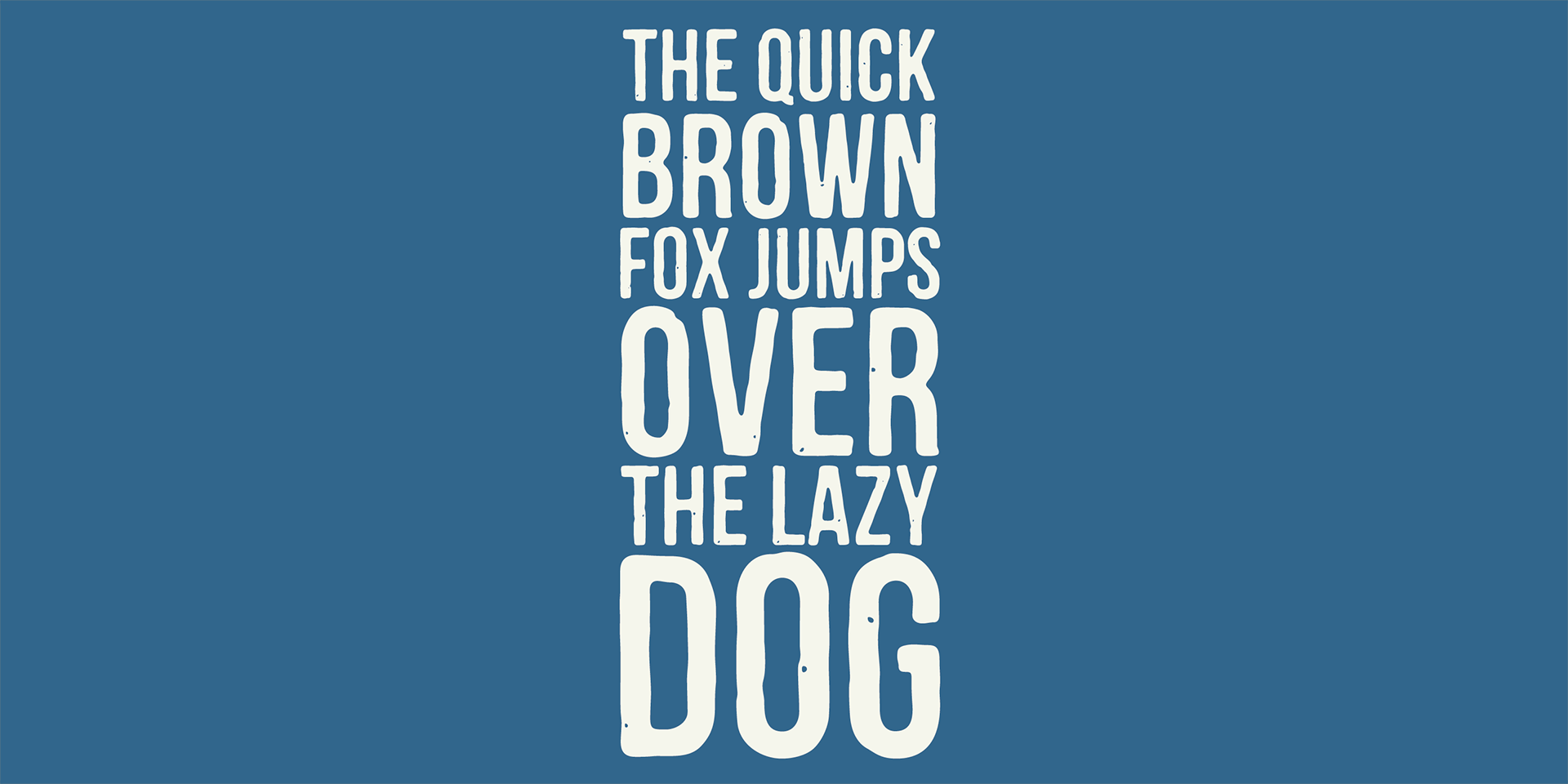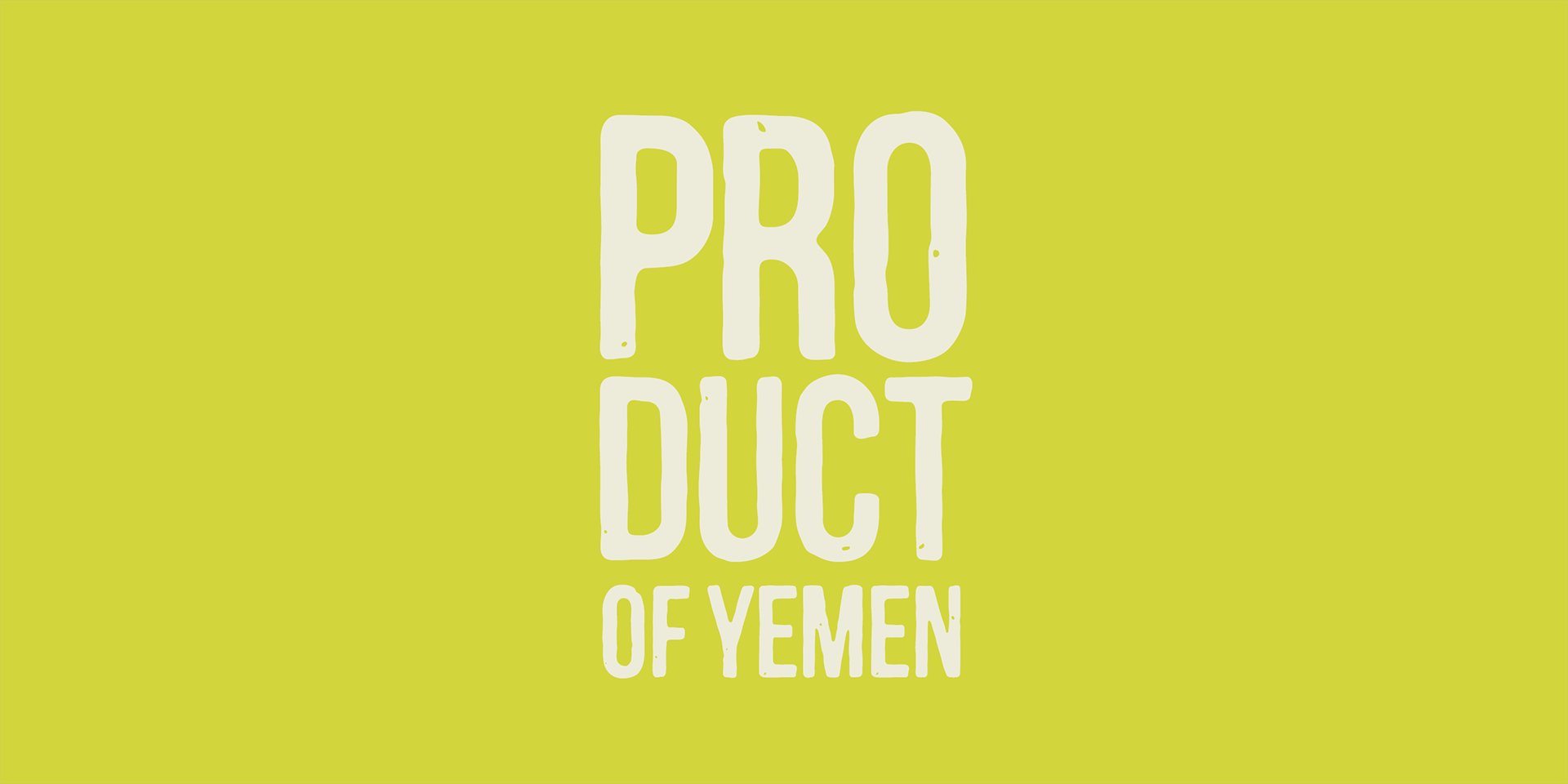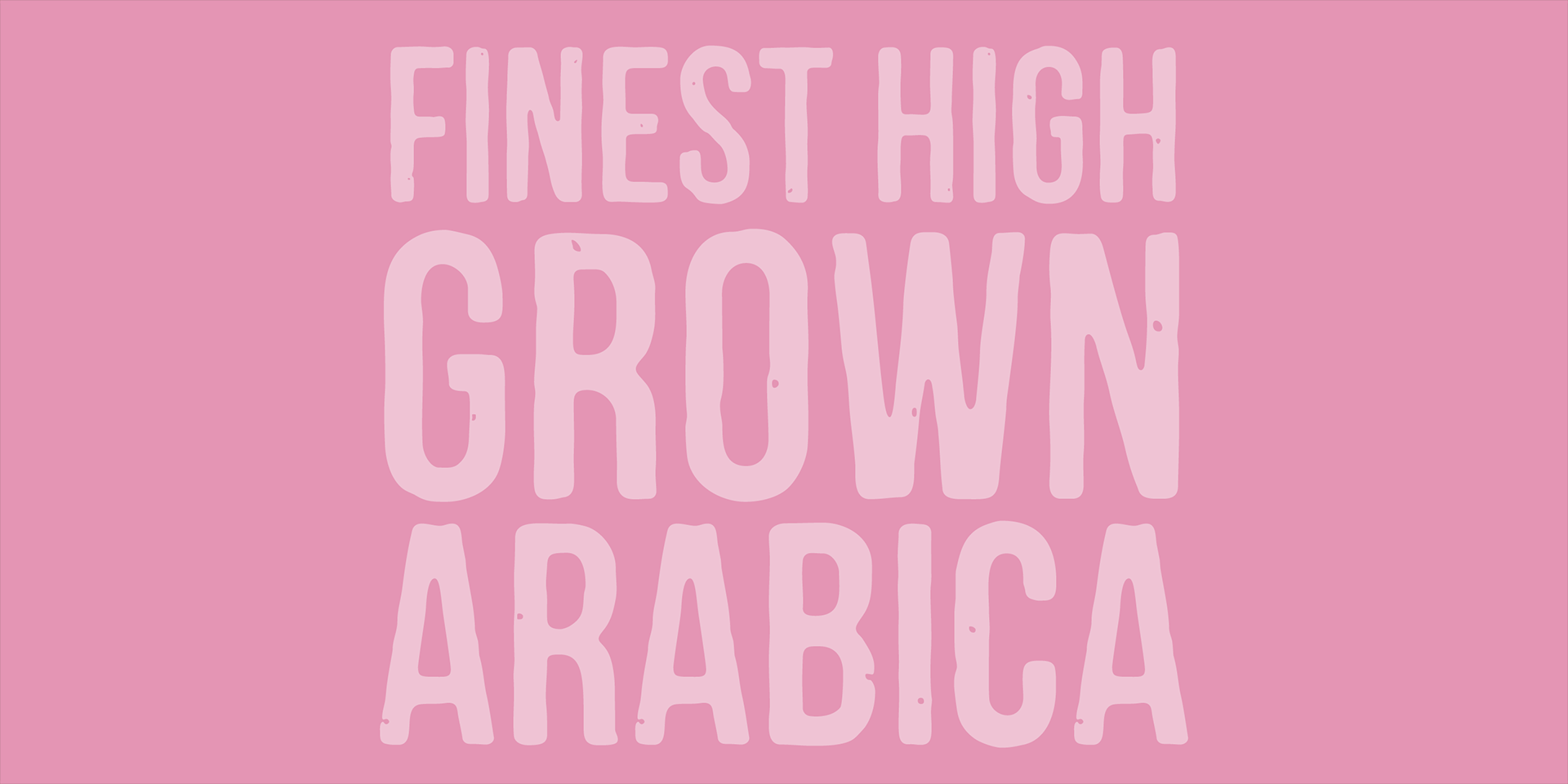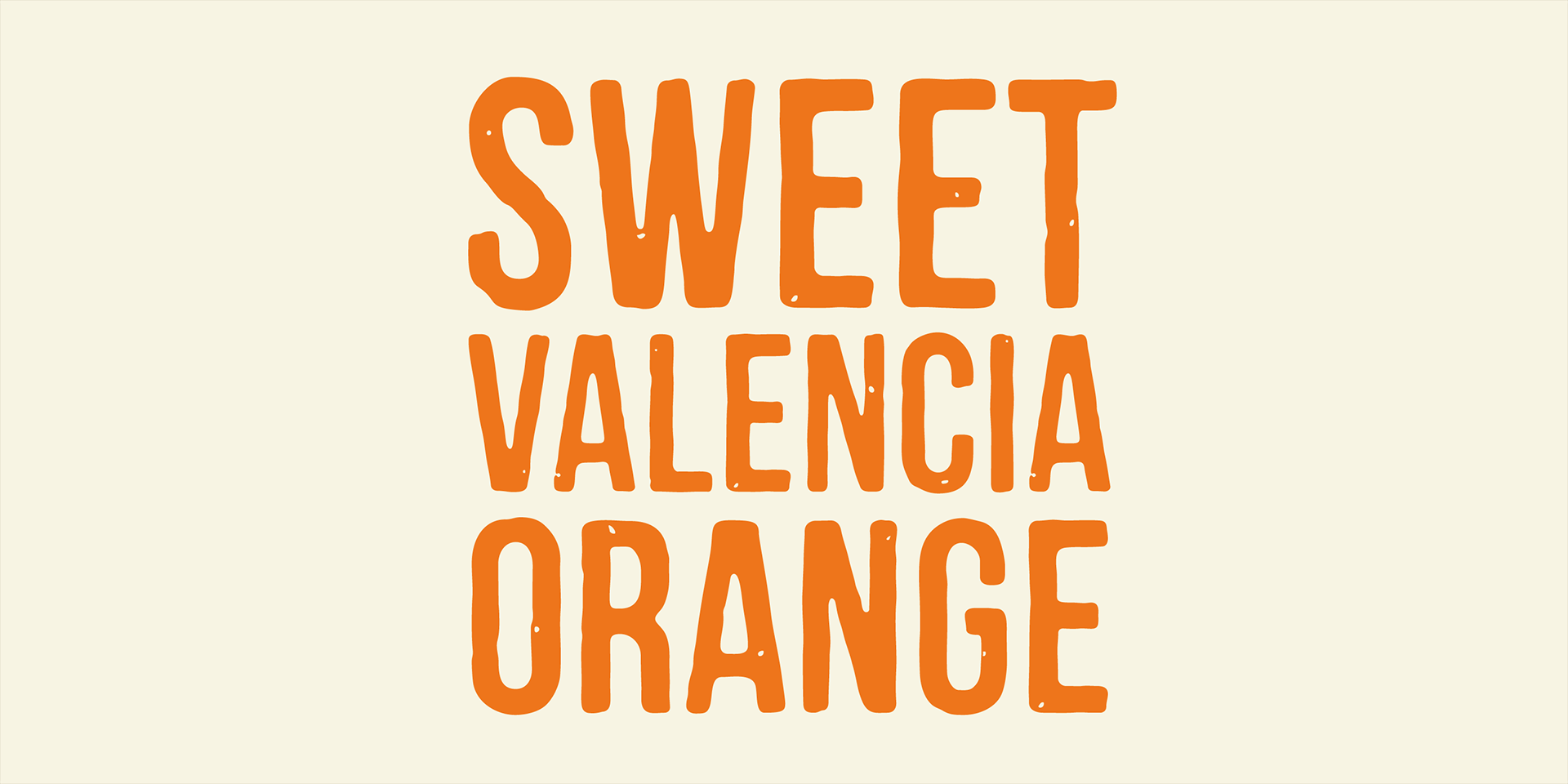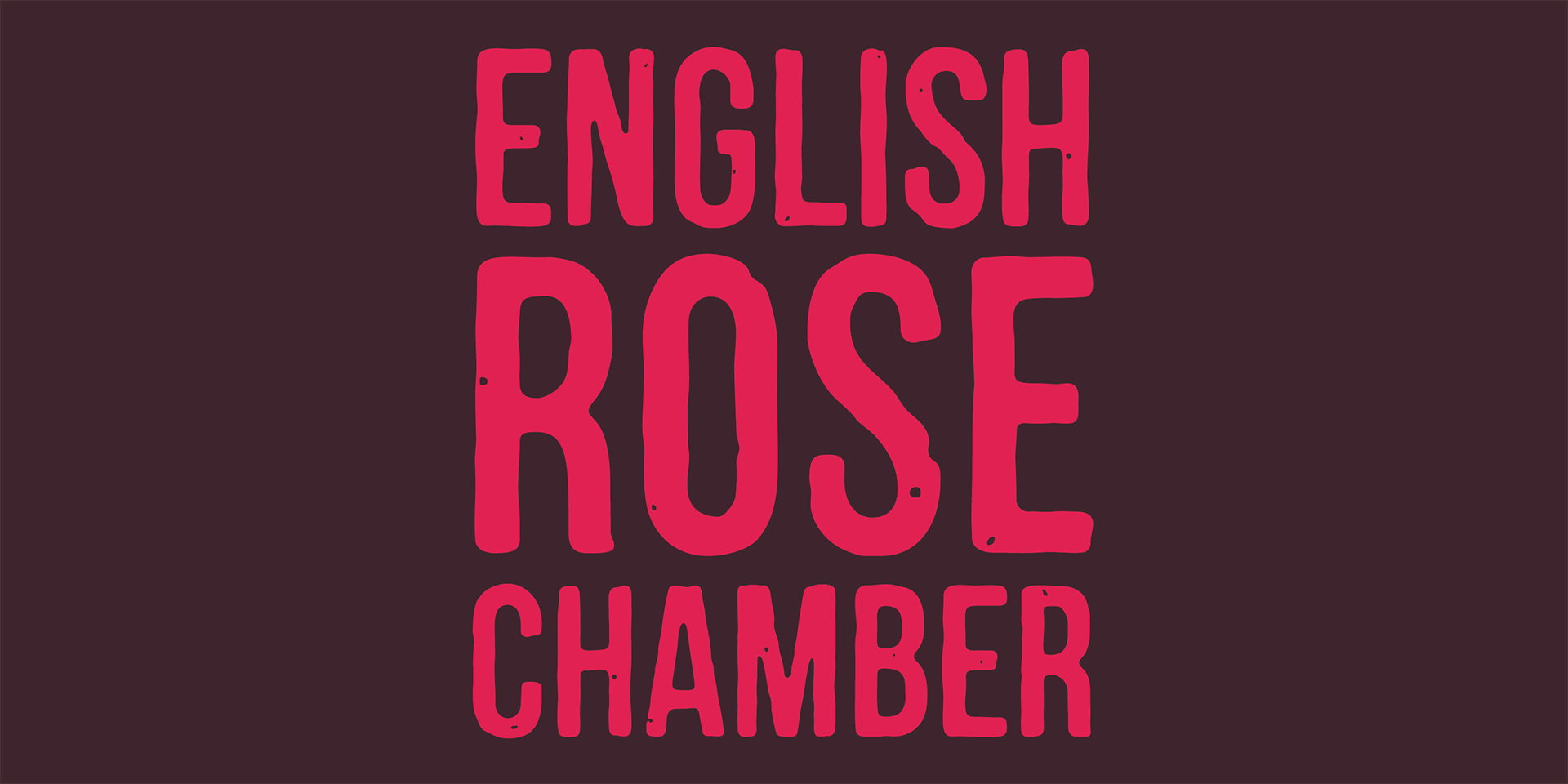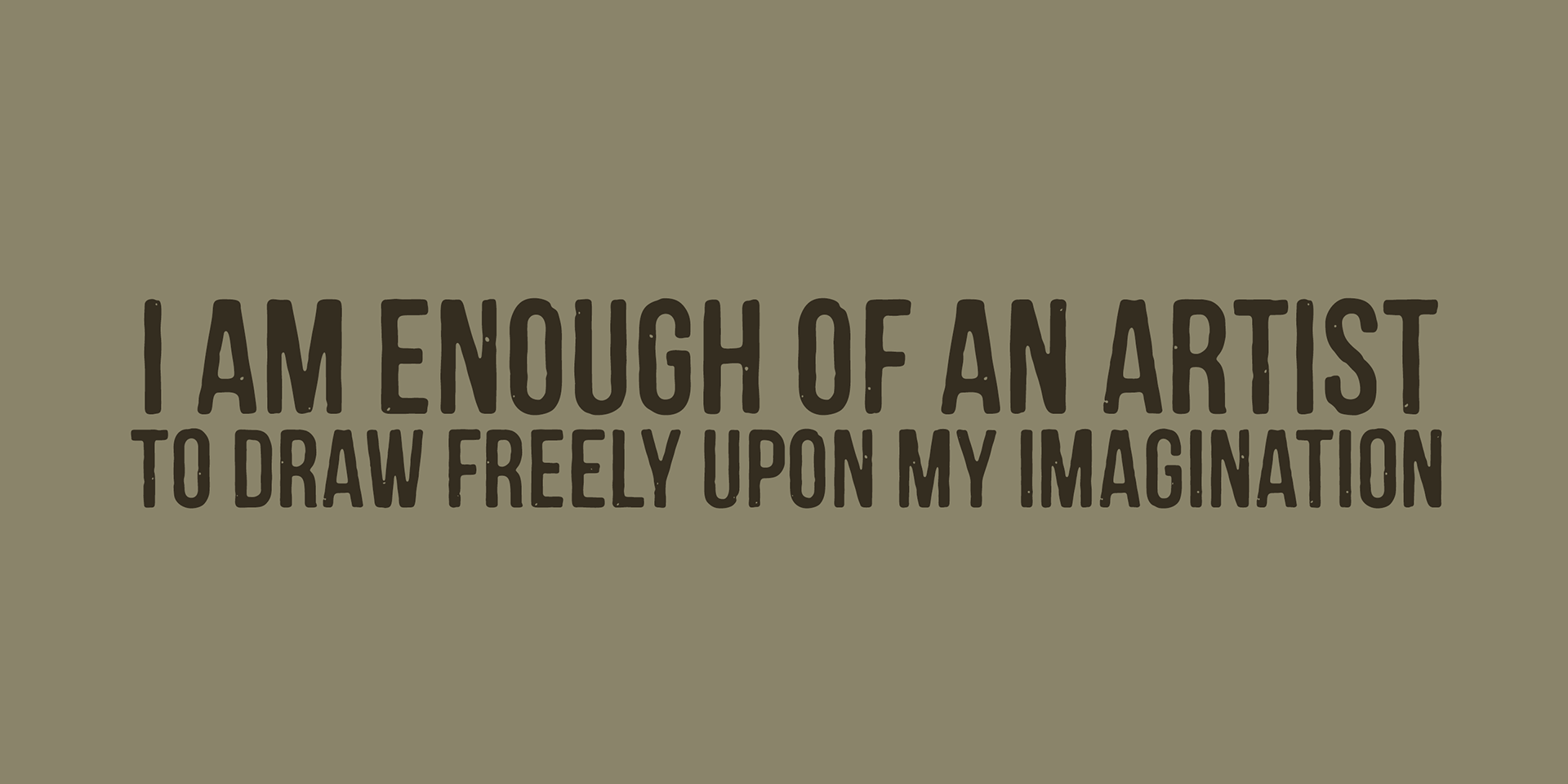
Mocha Mattari
Mocha Mattari is a distressed display font based on the widely popular Bebas Neue, originally released as a free font in 2010.
Bebas Neue has gained immense popularity, especially as a web font, and Mocha Mattari builds on that legacy with a handcrafted, worn aesthetic.
Created by intentionally damaging and manually tweaking the original design, Mocha Mattari offers a gritty, tactile feel perfect for bold and textured visuals.
While it does not include lowercase letters, it features a set of alternative uppercase glyphs.
Additionally, special character combinations such as “g, m, oz, fl, lb”—used for units like gram, milli, ounce, fluid, and pound—are accessible via OpenType dlig (discretionary ligatures) or salt (stylistic alternates) features.